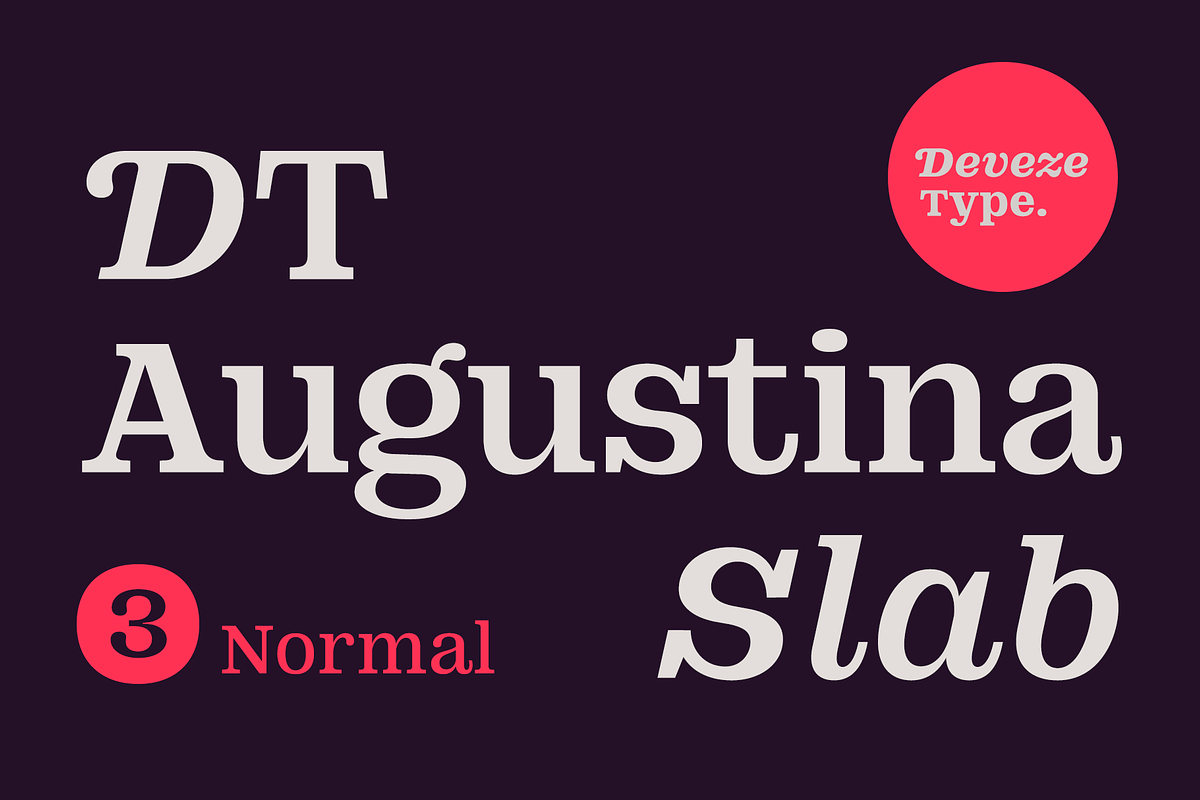
DT Augustina Slab 3 Subfamily Free Download is a stylish and versatile slab-serif typeface that combines modern design elements with a touch of classic charm. Featuring strong, geometric letterforms and thick, sturdy serifs, this font is perfect for branding, editorial layouts, posters, websites, and any project that needs bold yet approachable typography.
The DT Augustina Slab 3 Subfamily offers a variety of weights and styles, making it ideal for creating both impactful headlines and easy-to-read body text. Whether you're working on a corporate identity, a vintage-inspired project, or a creative portfolio, this font family brings versatility and professionalism to the table.